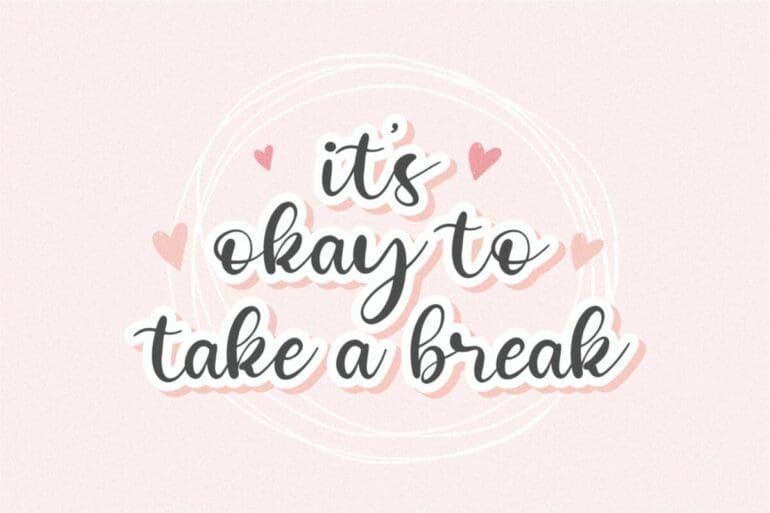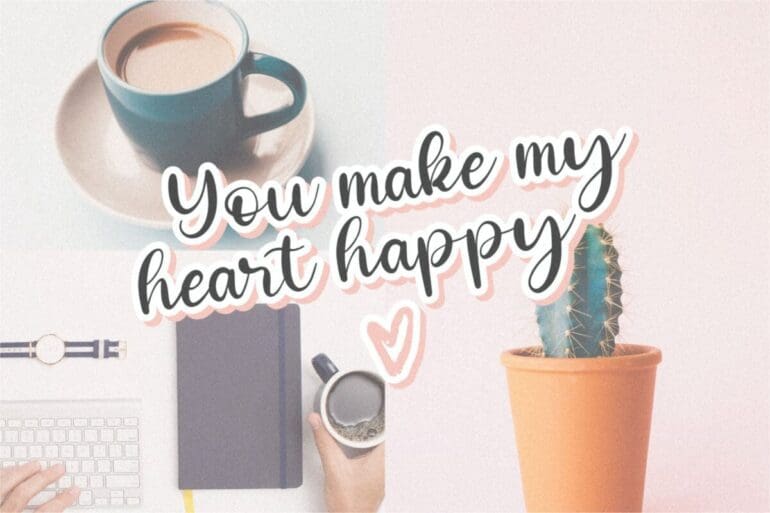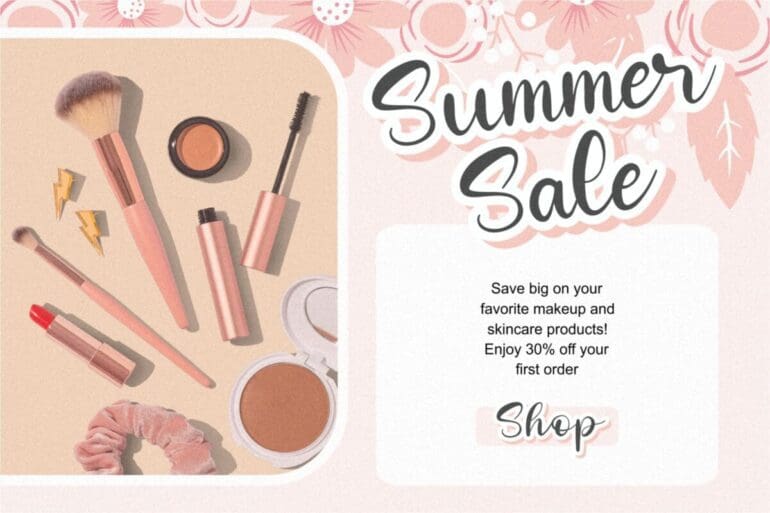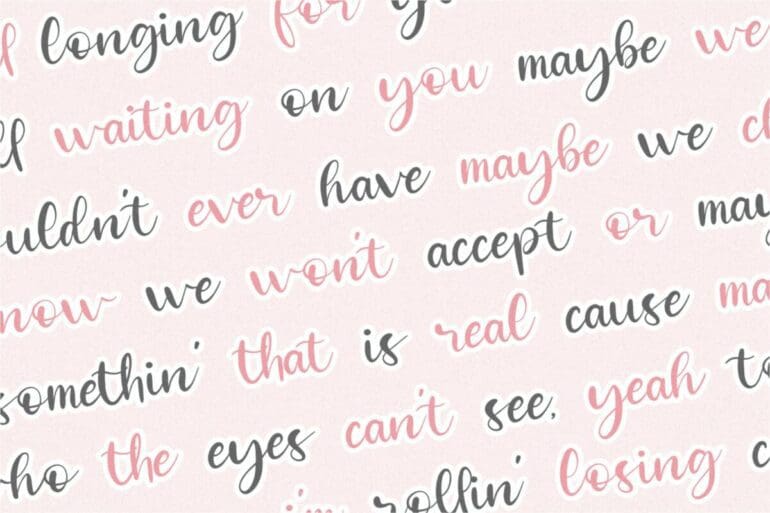
Heartbold Font
Heartbold is a Handwritten Script Font. Heartbold is perfect for product packaging, branding project, megazine, social media, wedding, or just used to express words above the background.